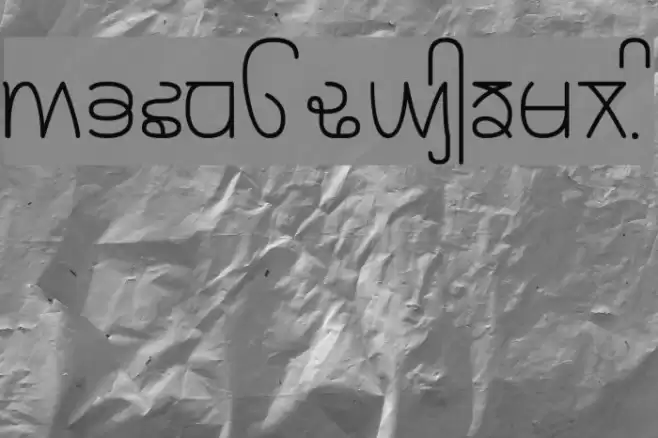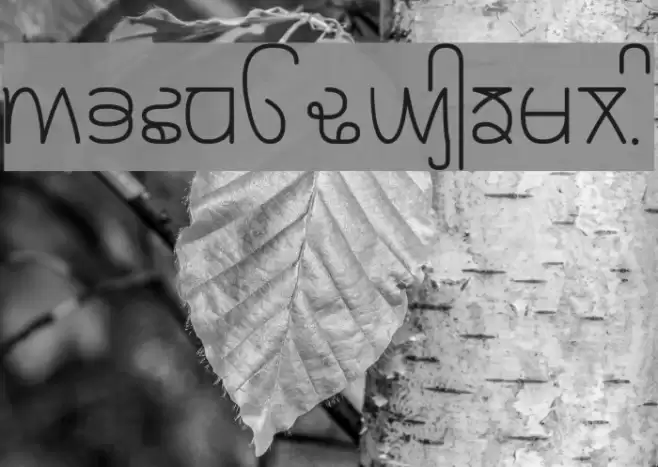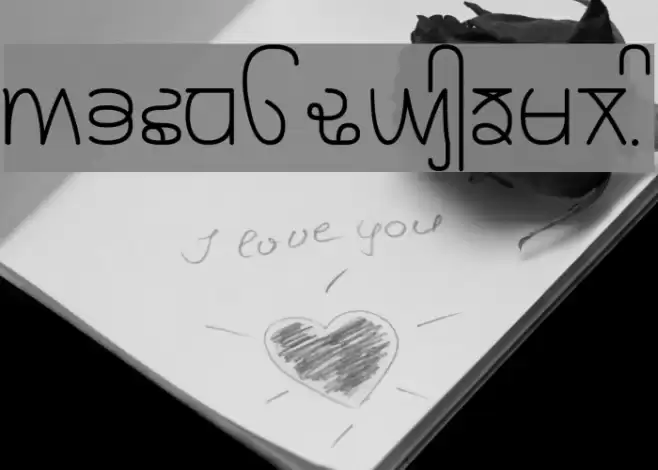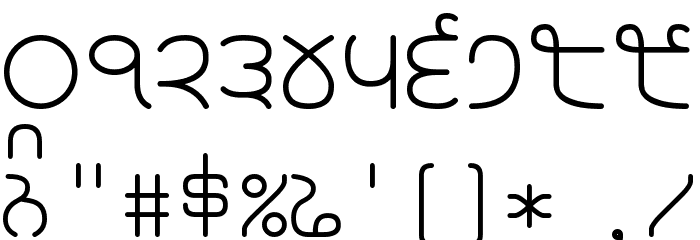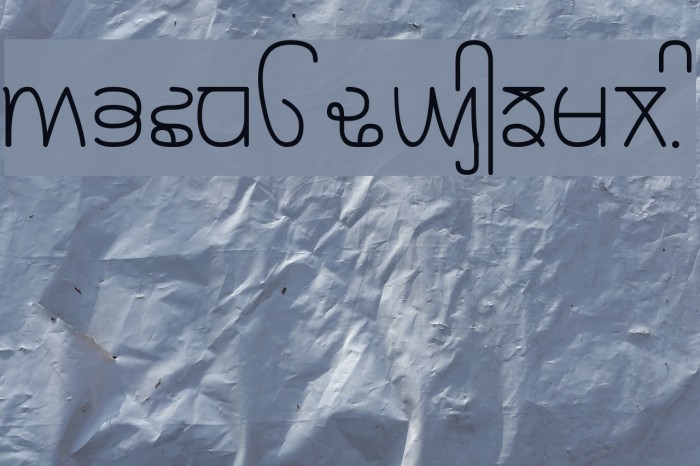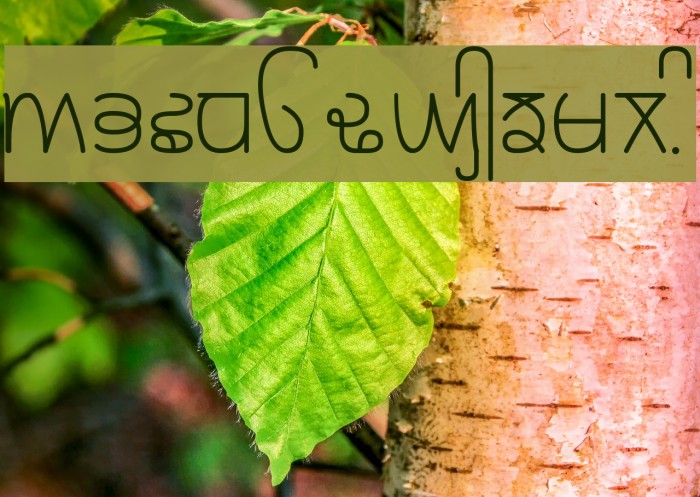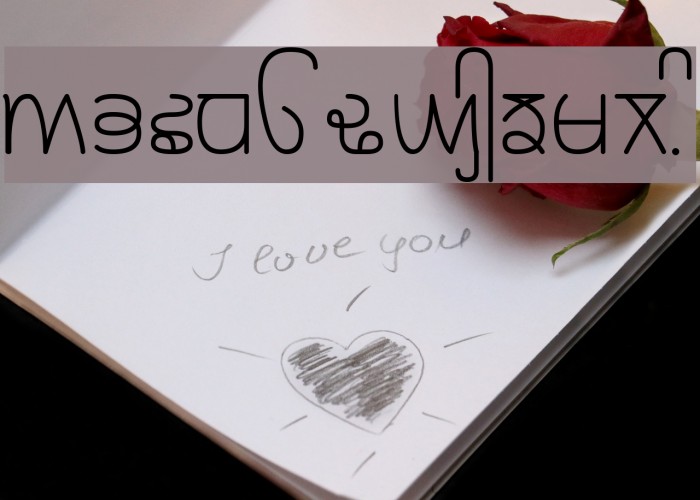
Rupe Light Font
Rupe Light Description
This font features a unique and artistic design with a blend of curves and sharp angles, creating a futuristic and abstract appearance. The characters are crafted with a consistent line weight, giving it a sleek and modern look. The font includes a full set of uppercase and lowercase letters, numbers, and a variety of special characters. Its distinct style makes it stand out, with each character having a playful yet sophisticated form. The spacing between characters is balanced, ensuring readability while maintaining its decorative appeal.
A modern, abstract font with consistent line weight and artistic character design from Asian fonts.
- Proposed Projects: Ideal for creative projects such as branding, posters, album covers, and digital art where a unique and modern aesthetic is desired.
- Use Case: Logos, Posters, Digital Art